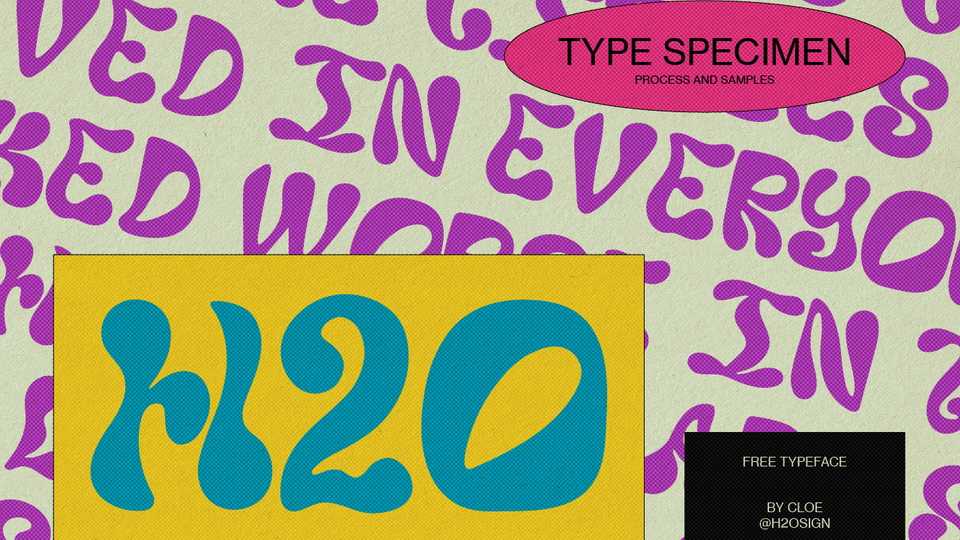
Download H2O Display font, a custom typeface that heavily derives its inspiration from the shape of water and 70’s retro design trends.
Designer: Cloe Sison